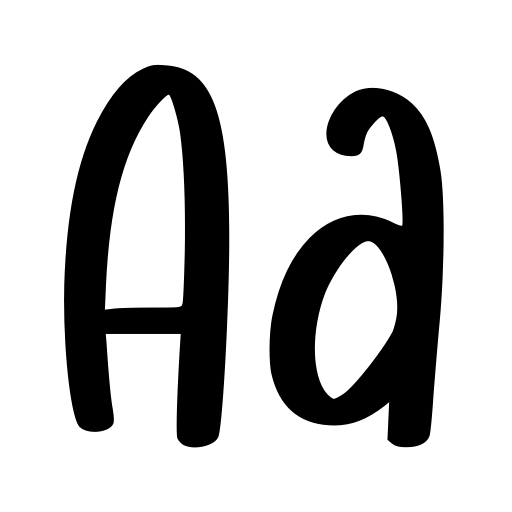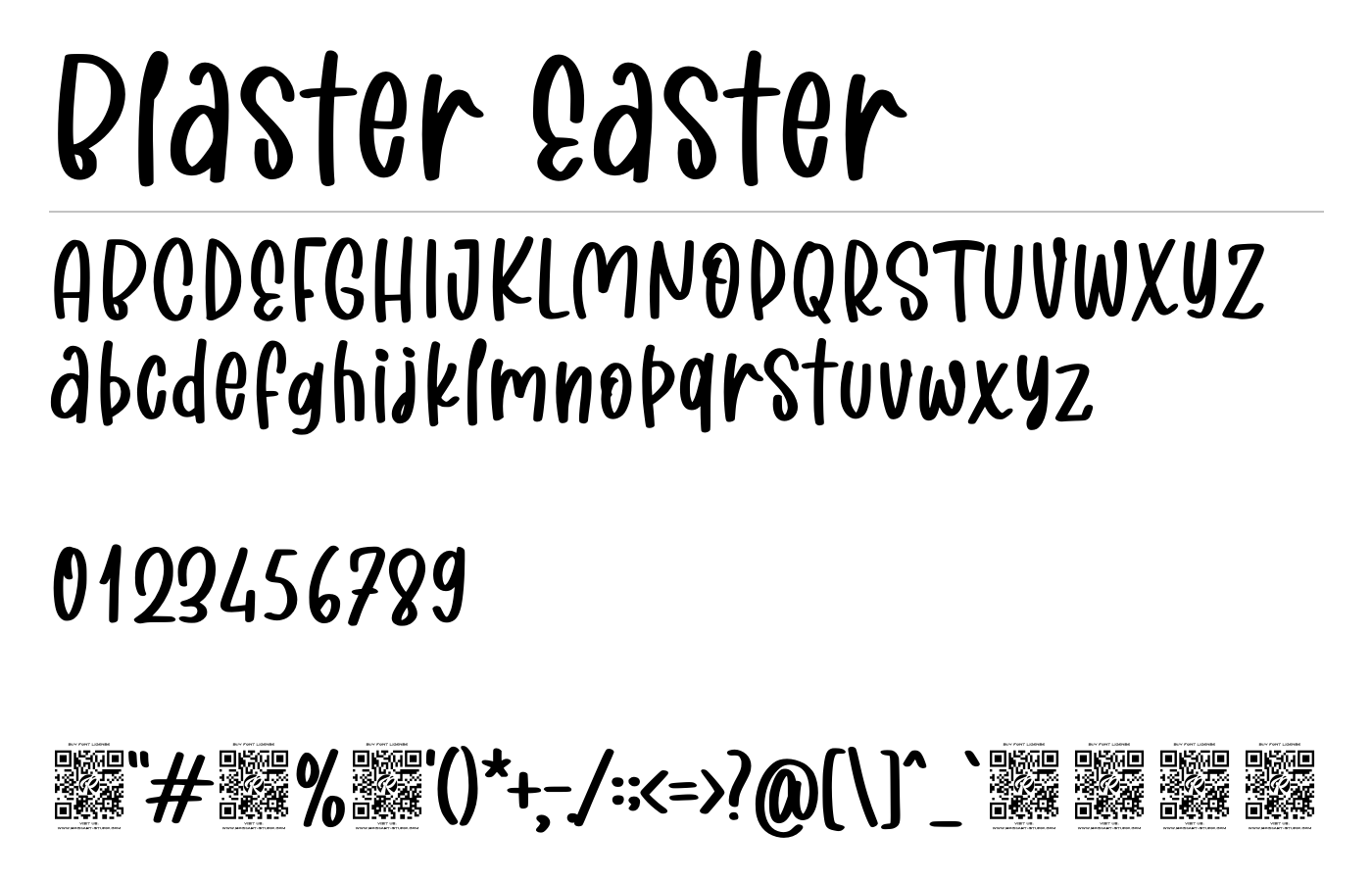
Blaster Easter is a playful, hand-drawn sans serif font with a friendly and casual feel. Its slightly tall, narrow letterforms and rounded strokes give it a warm, approachable personality perfect for informal designs. This font works wonderfully for kids’ projects, invitations, greeting cards, and any creative work that needs a fun, handwritten touch.
Blaster Easter Font
About Blaster Easter Font
| Font family | Blaster Easter Font |